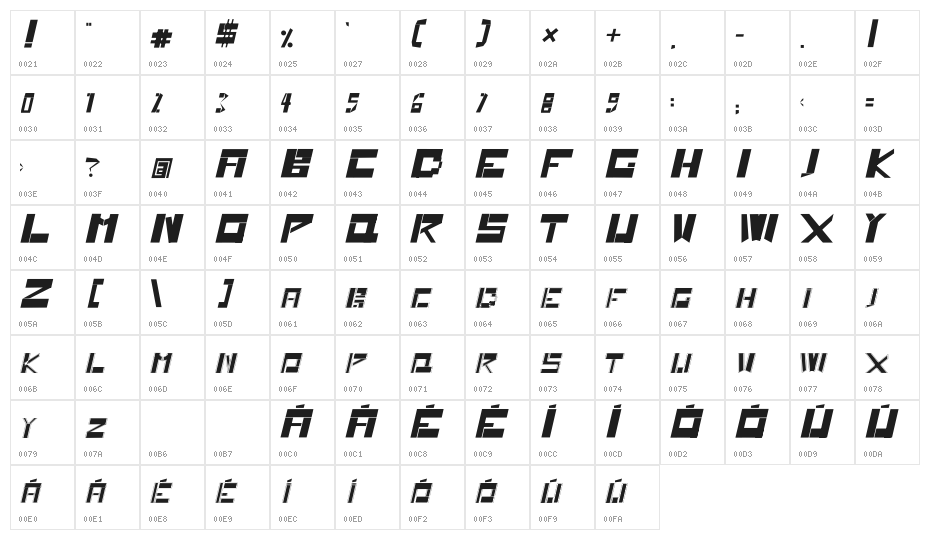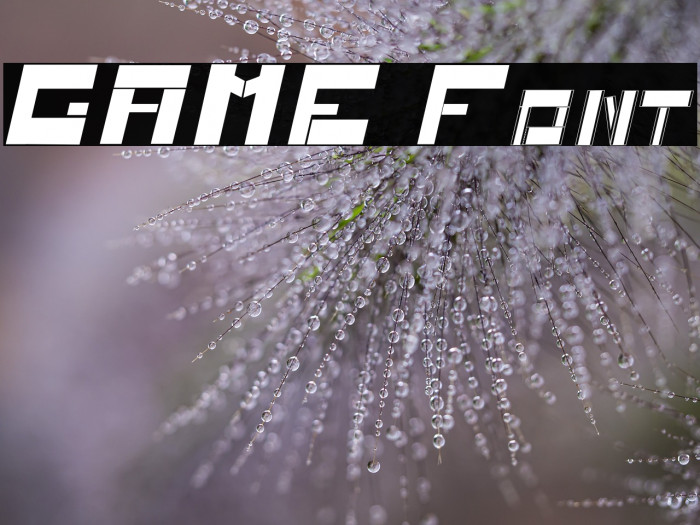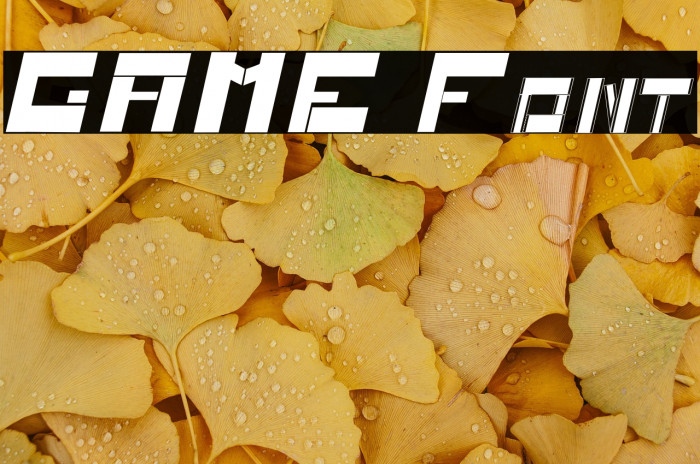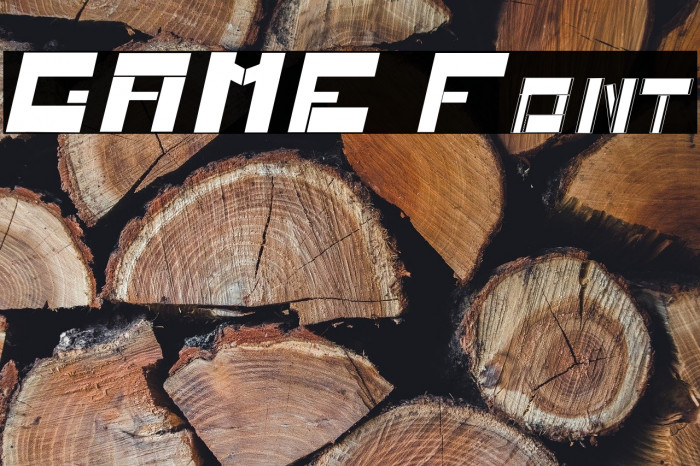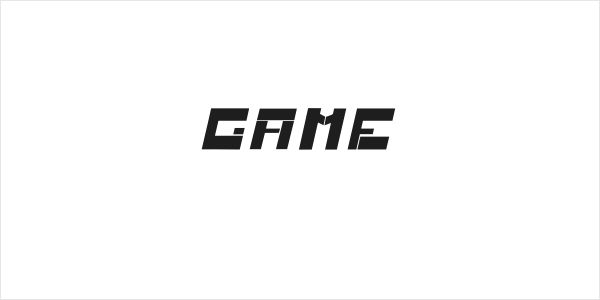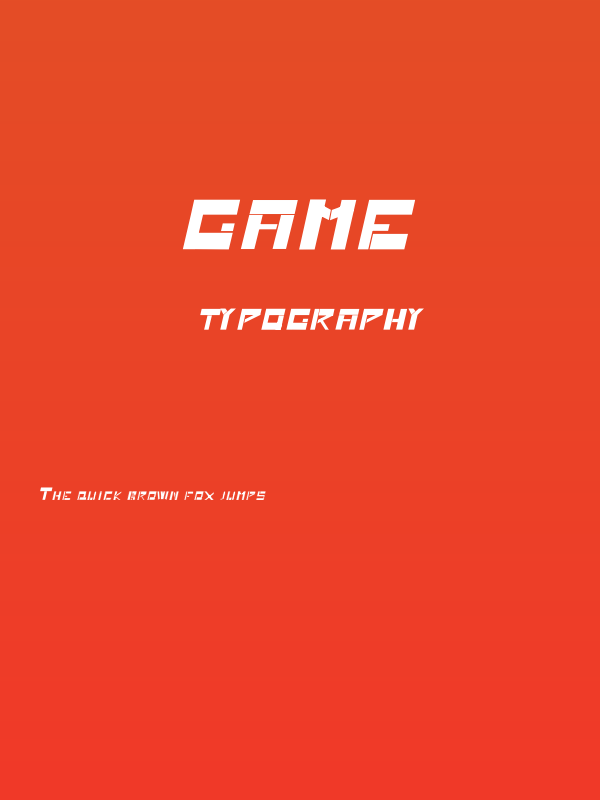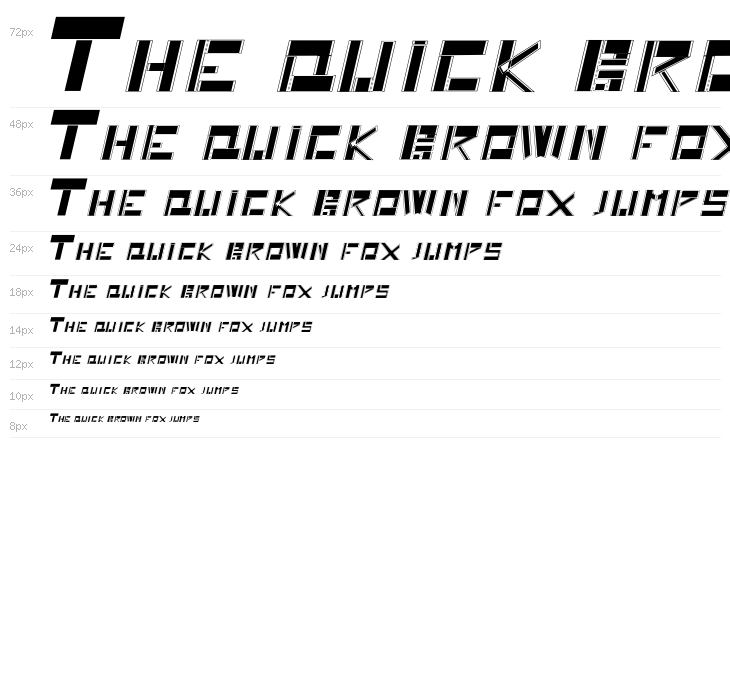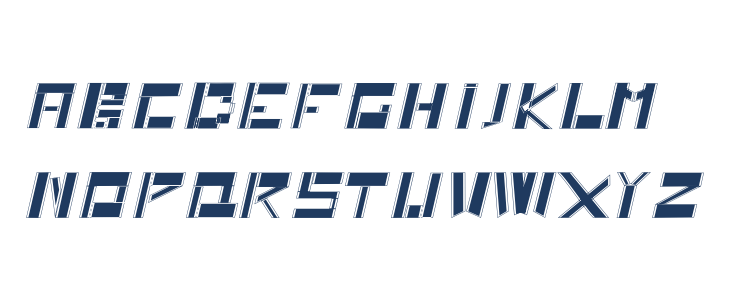
GAME Font
GAME Description
This font features a bold, futuristic design with sharp angles and geometric shapes. The uppercase letters are distinct with a blocky, angular style that gives a sense of movement and speed. The lowercase letters maintain the same angular aesthetic, providing a cohesive look throughout. Numbers and special characters are designed with the same boldness and angularity, making them stand out. The font's unique style makes it suitable for projects that require a modern and edgy appearance.
| Proposed Projects | Ideal for video game titles, sci-fi movie posters, tech branding, and sports team logos. |